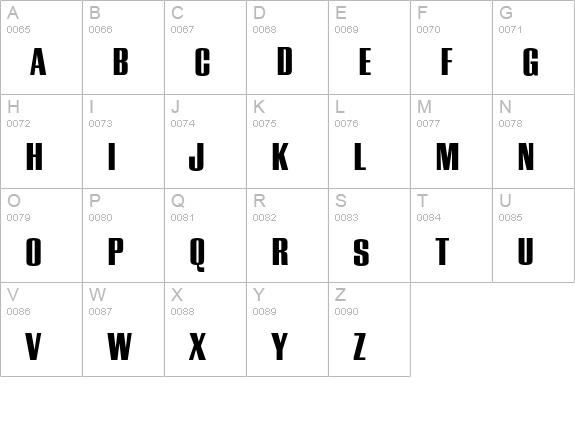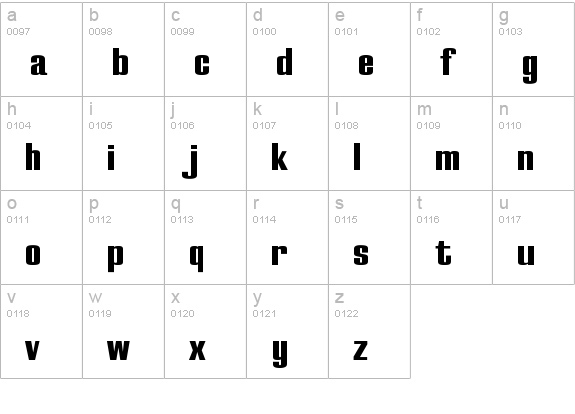
CaliforniaGrotesk-Black Font Details
CaliforniaGrotesk-Black is a maximum-weight, dramatic variant in the CaliforniaGrotesk typeface family \xE2\x80\x94 well suited to maximum-impact headlines, posters, and packaging.
CaliforniaGrotesk-Black is a captivating and bold typeface that commands attention with its strong lines and distinctive letters. This modern sans-serif font exudes confidence and creativity, making it a perfect choice for designs that require a powerful and impactful aesthetic. With its sleek and modern design, CaliforniaGrotesk-Black is versatile and suitable for a wide range of design projects, from branding to editorial design. Whether used for headlines, posters, or logos, this font delivers a bold and striking look that is sure to make a statement. Best of all, CaliforniaGrotesk-Black is available for free download at FontsMarket.com, allowing designers and creatives to access this impressive font without any cost. Don't miss out on this opportunity to enhance your designs with the bold and dynamic CaliforniaGrotesk-Black font. Download it now and take your projects to the next level!